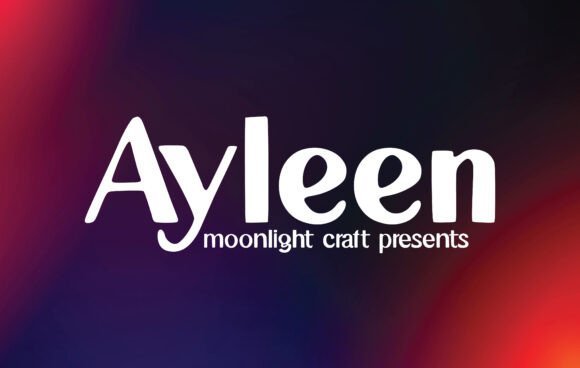
The Perfect Blend of Style and Personality
Do you ever find yourself staring at a blank page, desperate for the perfect font to bring your creative idea to life? You know, that moment when everything seems to be in place, but that one element is missing – the one that makes your design truly shine. It’s a feeling we’ve all experienced, and it’s exactly what inspired the creation of Ayleen Font, a versatile and eye-catching typeface designed to be a go-to favorite for designers.
Ayleen Font is more than just a font – it’s a tool that helps you convey your message with clarity and style. Its clean and easy-to-read design makes it perfect for both titles and body text, making it a valuable addition to any designer’s toolkit. Whether you’re working on a magazine cover, a t-shirt design, or a social media post, Ayleen Font is the perfect choice to add a touch of personality to your work.
Ayleen Font Key Features
- Font Family: Ayleen Font is a sans-serif typeface, designed for use in digital and print media.
- Unique Characteristics: Ayleen Font features a modern, clean design with geometric shapes and subtle rounded edges, making it ideal for use in digital interfaces, signage, and branding materials.
Ayleen Font Review
I recently had the chance to work with the Ayleen Font, and I must say, it’s a mixed bag for me. ✨ On the positive side, the font’s modern and elegant design makes it perfect for creating a sleek and sophisticated look for any project. The font’s versatility also shines through, as it can be used for both digital and print-based materials.
Another aspect that I appreciate about Ayleen Font is its extensive character set, which includes a wide range of languages and special characters. This makes it an excellent choice for designers who work with diverse clientele or need to create content in multiple languages.
- Modern and elegant design
- High level of versatility
- Extensive character set
- Can be a bit too bold for certain applications
- May not be the best choice for projects requiring a more conservative look
- Some users may find the font’s spacing to be a bit too tight
Overall, I would say that the Ayleen Font is a solid choice for designers who want to add a touch of modernity to their projects. While it may not be perfect for every application, its strengths far outweigh its weaknesses. With a little bit of creative license, the Ayleen Font can be a real game-changer in the right hands.
Tips for Getting the Most Out of Ayleen Font
Here are a few tips for getting the most out of Ayleen font:
- Use Ayleen font for titles and headings to create a visually appealing design.
- Pair Ayleen font with a clean and simple font for body text to create a balanced design.
- Experiment with different font sizes and styles to create a unique and eye-catching design.
Ayleen font is commonly used for:
- Designing social media graphics and posts.
- Creating presentations and reports.
- Designing business cards and marketing materials
Great Vibes is a modern, elegant script font that is perfect for creating eye-catching headings and titles. It’s ideal for use in branding, packaging, and advertising materials. When to use: When you need a sophisticated, high-end look that commands attention.
Comparison to Ayleen Font: Great Vibes has a more refined, polished feel compared to Ayleen Font’s playful, handwritten style. Great Vibes is better suited for formal or luxury brands, while Ayleen Font is more versatile and can work for a wider range of applications.
Carolyna Pro is a stylish, modern sans-serif font that is great for body text and captions. It’s perfect for use in editorial, fashion, and lifestyle publications. When to use: When you need a clean, modern look that’s easy to read.
Q: Does Ayleen Font support languages other than English?
Ayleen Font includes a comprehensive character set that supports multiple languages, including Latin, Cyrillic, and Greek alphabets. However, the font’s language support may vary depending on the specific font format and the software used to view the font.